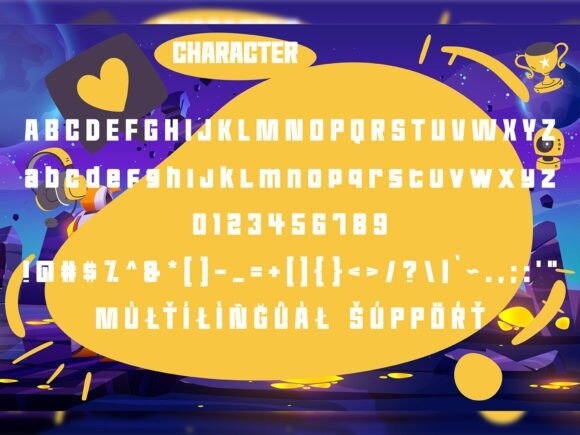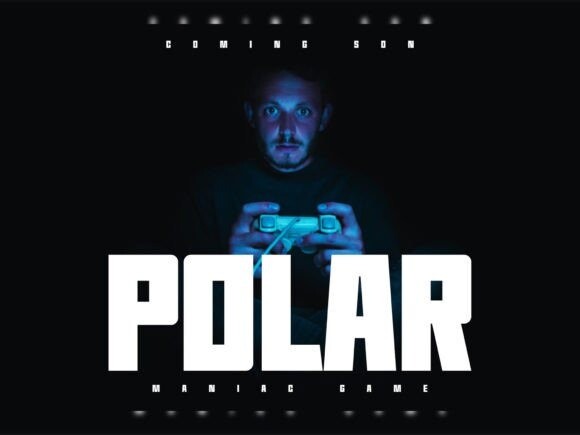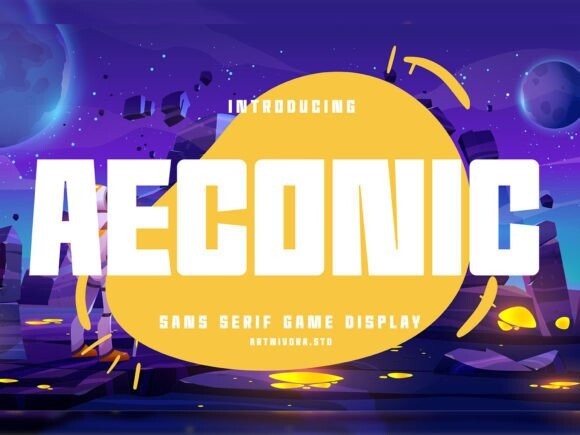
Aeconic Font
Aeconic Font is a sleek and modern sans serif game display font designed for maximum readability and visual impact. With clean lines and a contemporary aesthetic, Aeconic adds a touch of sophistication to your game interface. Whether you’re creating a bold title or dynamic in-game text, Aeconic’s simplicity and versatility make it an excellent choice for a wide range of gaming applications. Elevate your design with Aeconic’s minimalist charm and ensure a polished and engaging gaming experience.